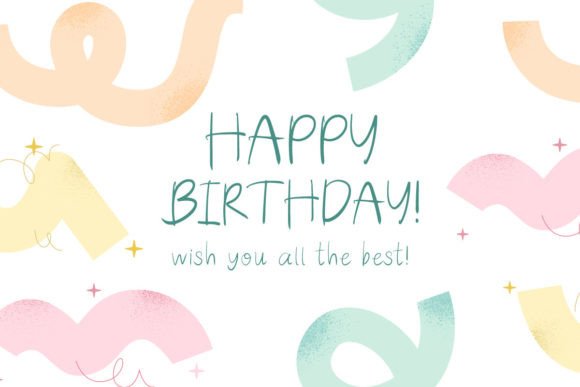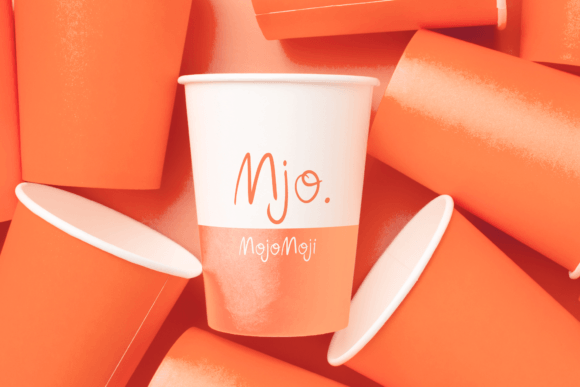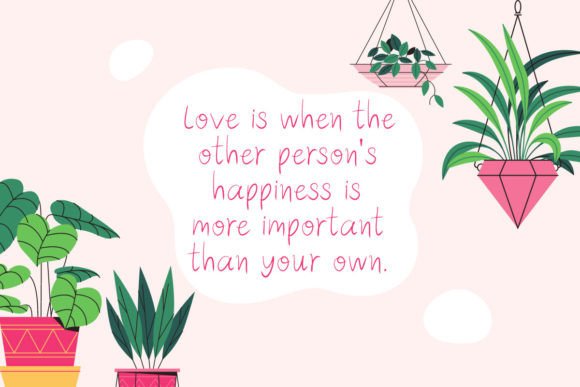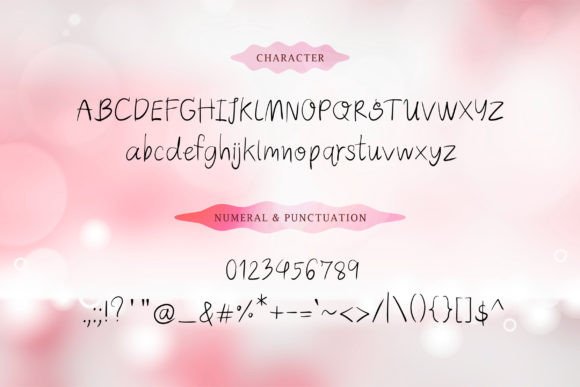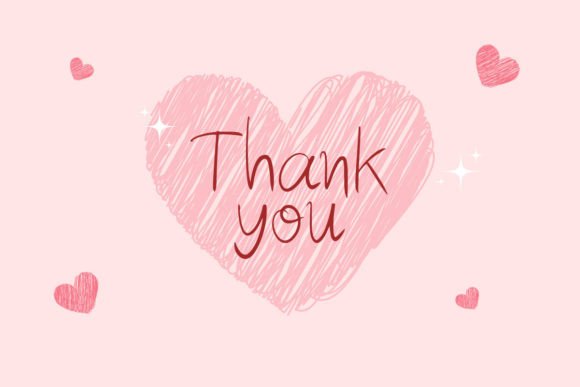
Hello Rosie Font
About Hello Rosie Font
“Hello Rosie” is a delightful handwritten font that radiates positivity and character. With its friendly hand-lettered style, this font exudes charm and warmth, making it a perfect choice for a variety of creative applications.
The positivity and character embedded in “Hello Rosie” make it particularly well-suited for projects where a personal and inviting touch is desired. Whether you’re working on quotes, headings, logos, branding, merchandise, or websites, this font adds a friendly and stylish element to your designs.
Imagine “Hello Rosie” enhancing a quote graphic, where its handwritten charm brings the words to life with positivity. Picture it in a logo, conveying a brand’s friendly and approachable identity. Envision this font gracing merchandise, adding a touch of character and style to products.
The versatility of “Hello Rosie” extends across different design contexts, allowing it to be a go-to choice for designers and creators seeking a font that combines charm with a personal touch. Its friendly and hand-lettered aesthetic ensures that your projects carry a distinctive and welcoming vibe.
Whether you’re a graphic designer working on diverse projects or an individual looking to add a positive and characterful flair to your creations, “Hello Rosie” invites you to infuse your designs with its delightful charm. Let this font be the friendly companion that elevates your creative endeavors and resonates with your audience.